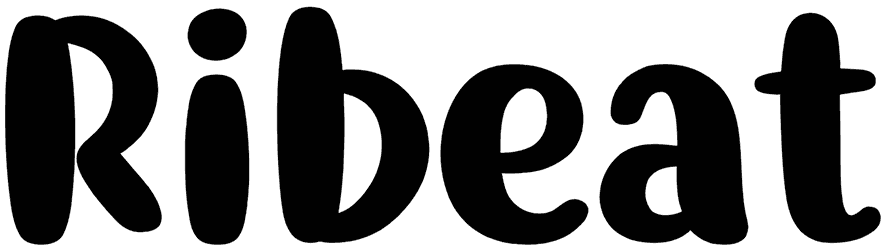
If you are thinking of conquering the world of branding by implementing your creative projects, Ribeat can be one of your options for designs.
This cartoon font has a very quiet and distinct look that can add a touch of credibility to any brand. Contrasting lines and short letters make them look childish and playful. So if you work in the children’s field and are looking for a distinctive appeal, don’t waste a moment downloading this font.